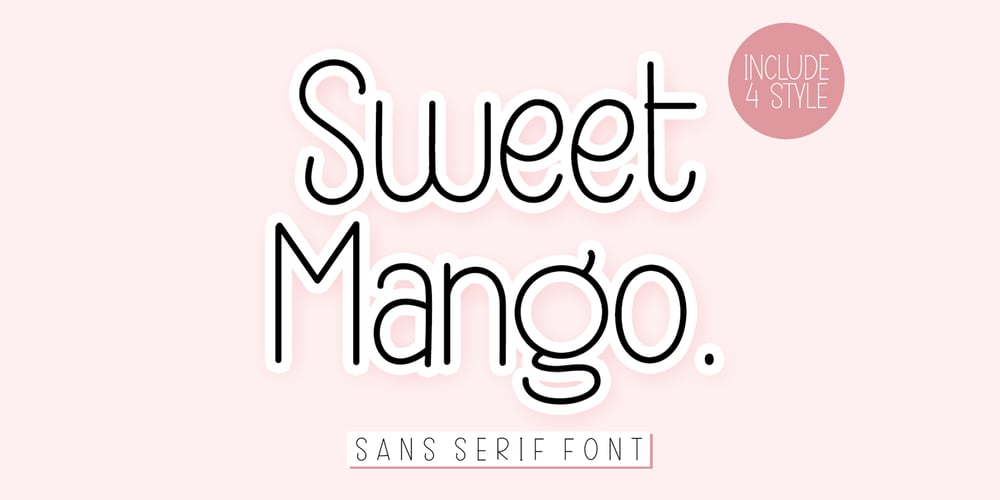
Sweet Mango Italic
Sweet Mango Italic font
Sweet Mango Italic Font Family was designed by Ahmad Afandi and published by Letterafandi Studio. Sweet Mango Italic contains 4 styles and family package options. Sweet Mango is a modern sans serif font. This font is perfect for logos, greeting cards, package design, brand identity, craft designs, any DIY projects, book titles, wedding invitations, packaging, and more.Include 4 style font : Sweet Mango Regular Sweet Mango Italic Sweet Mango Bold Sweet Mango Italic Bold